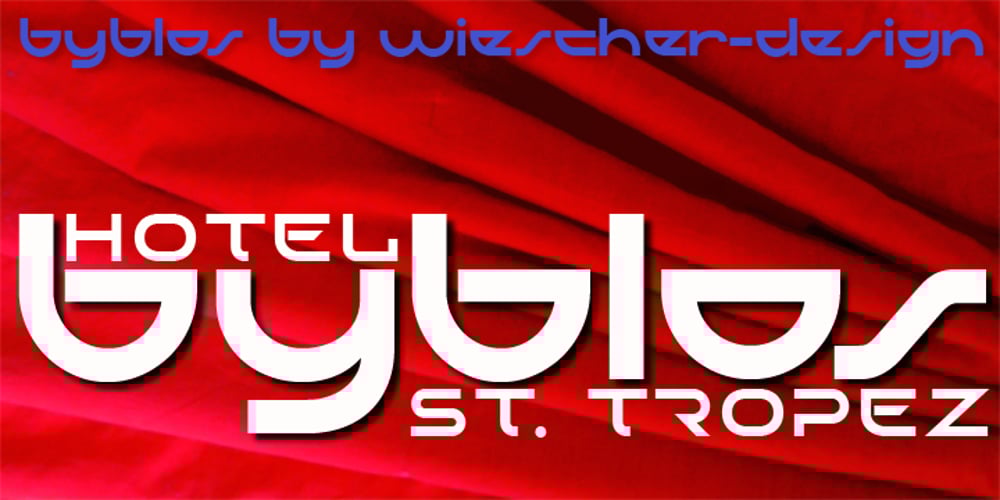
Byblos Font Family was designed by published by Wiescher Design. Byblos contains 1 styles and family package options. “Byblos” is the name of a town in Lebanon and the name of a famous hotel in St. Tropez. Some time ago I discovered their original logo in an old french magazine, just 5 by 3 centimeters small without any text, address, telephone number not even a picture. They did not need that, that’s how famous the hotel and its old logo was. Well they abandoned their identity when the place was sold to a big chain – I think. But the logotype, just those five letters inspired me to this new font. It evokes times past and has a little Bauhaus in it – as well as a really modern touch, all depends on the way you use it. Your strange typedesigner Gert Wiescher